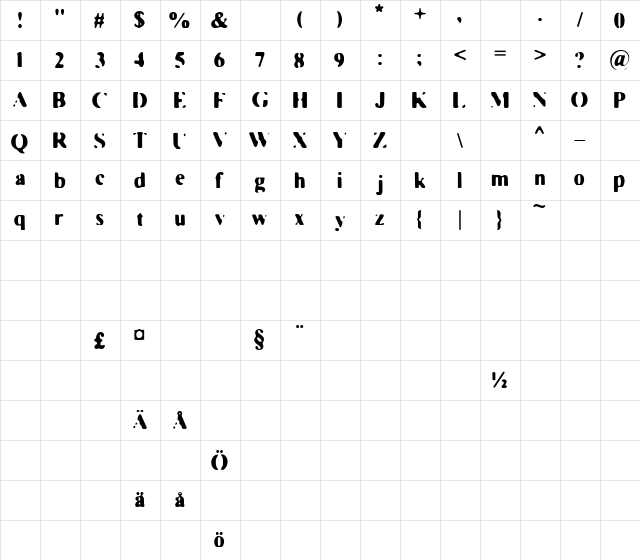
Faded MovieStar Faded MovieStar
Faded MovieStar is a composed and adaptable typeface that performs quietly and consistently across a wide range of design contexts.